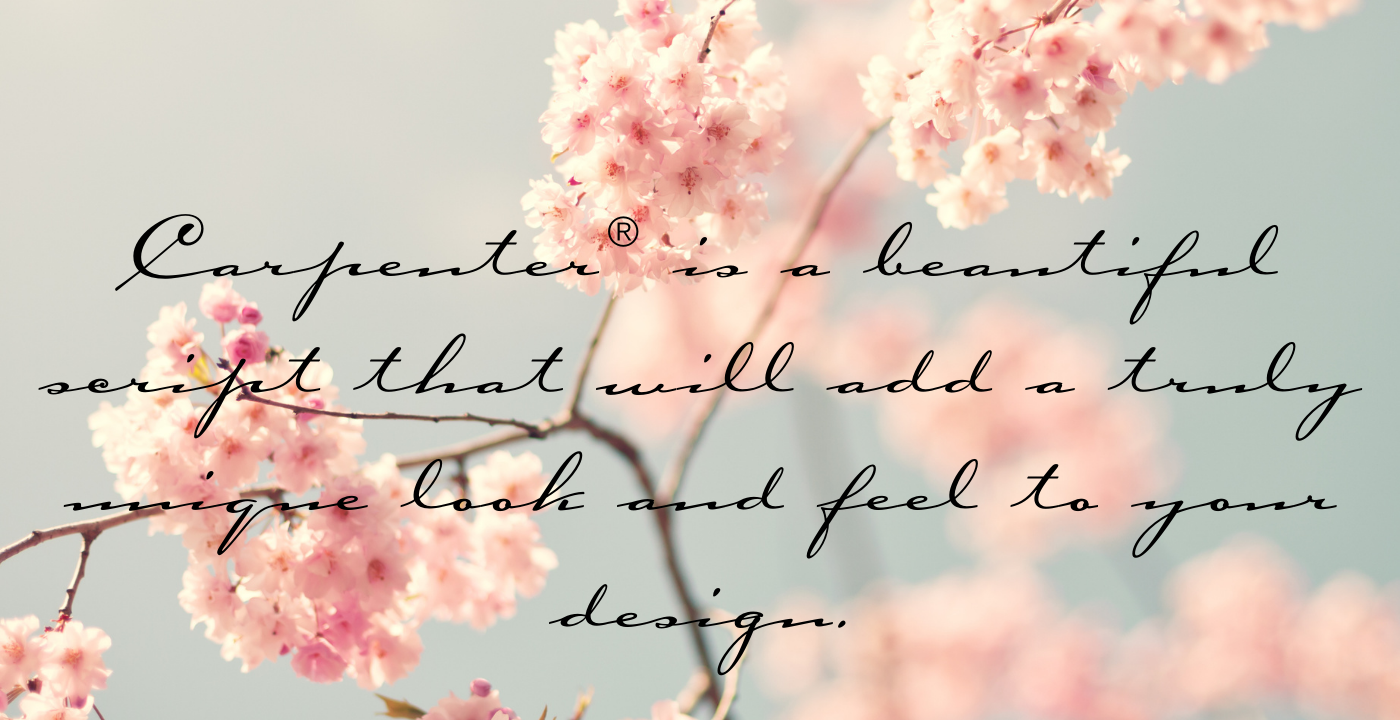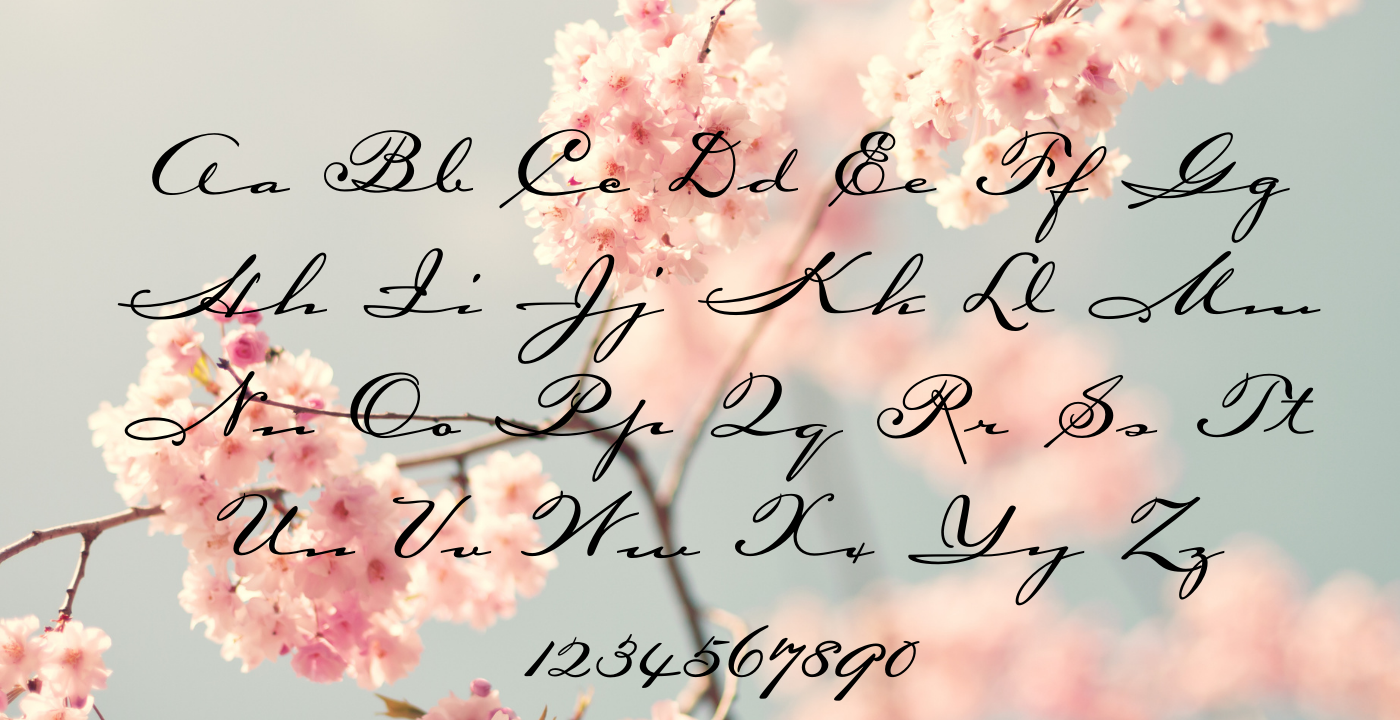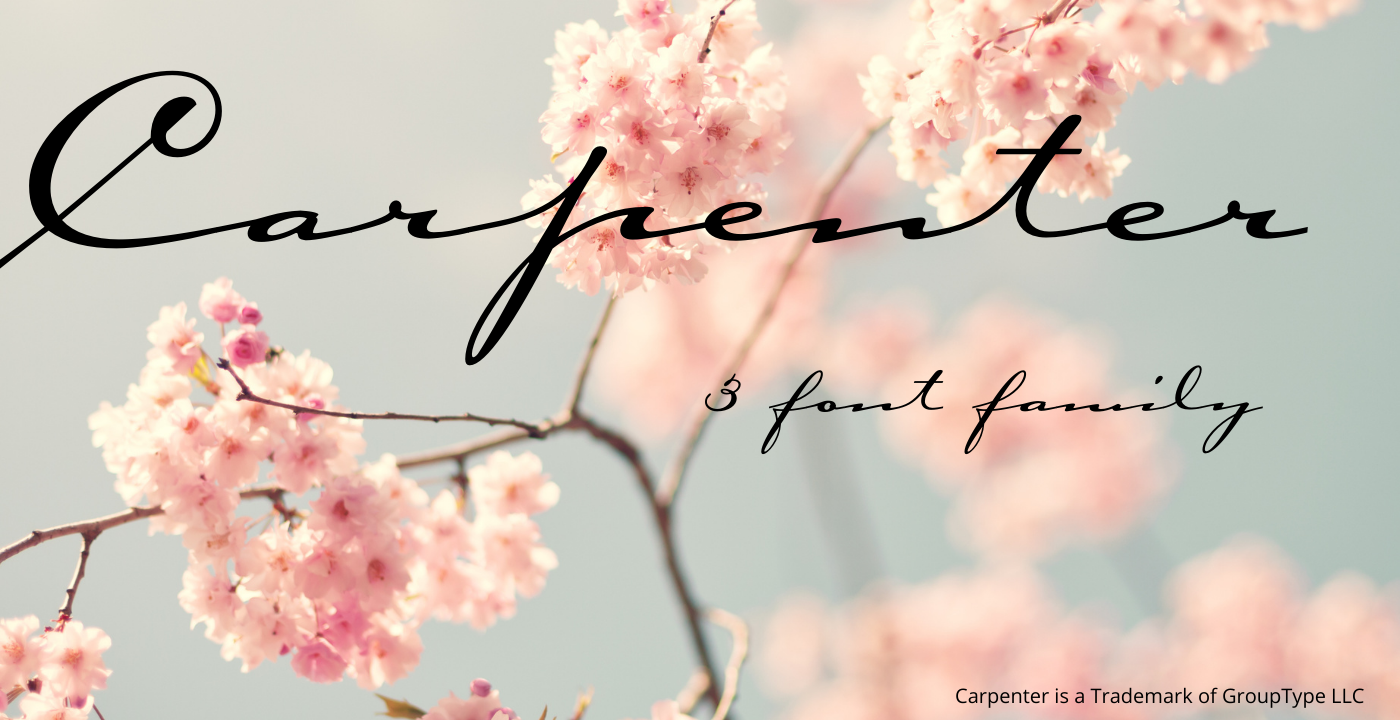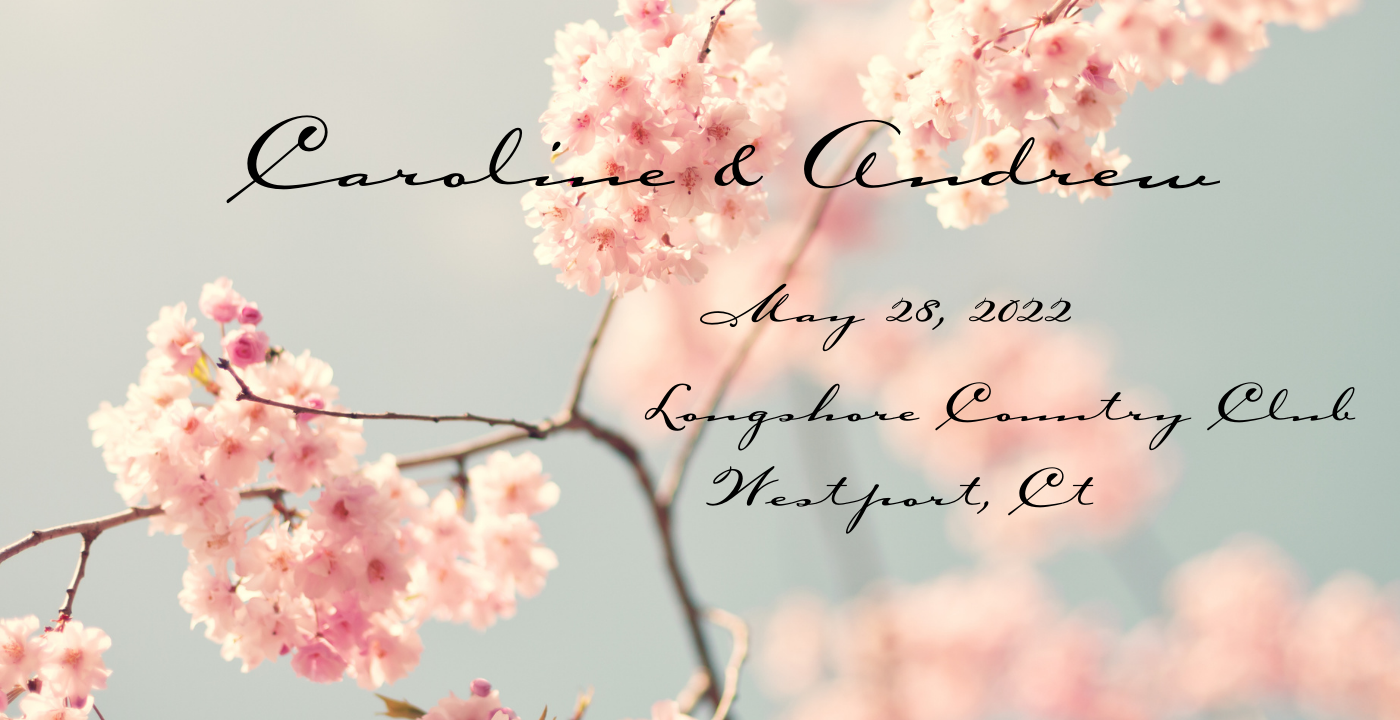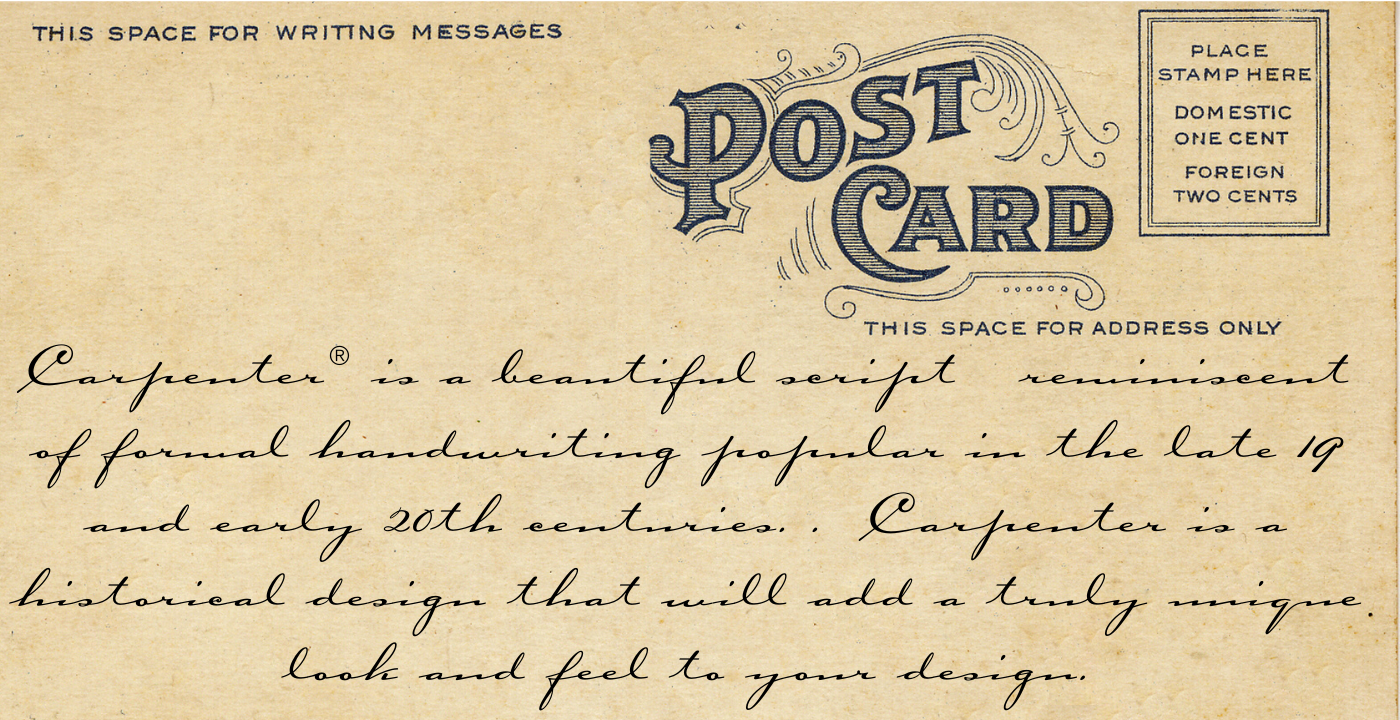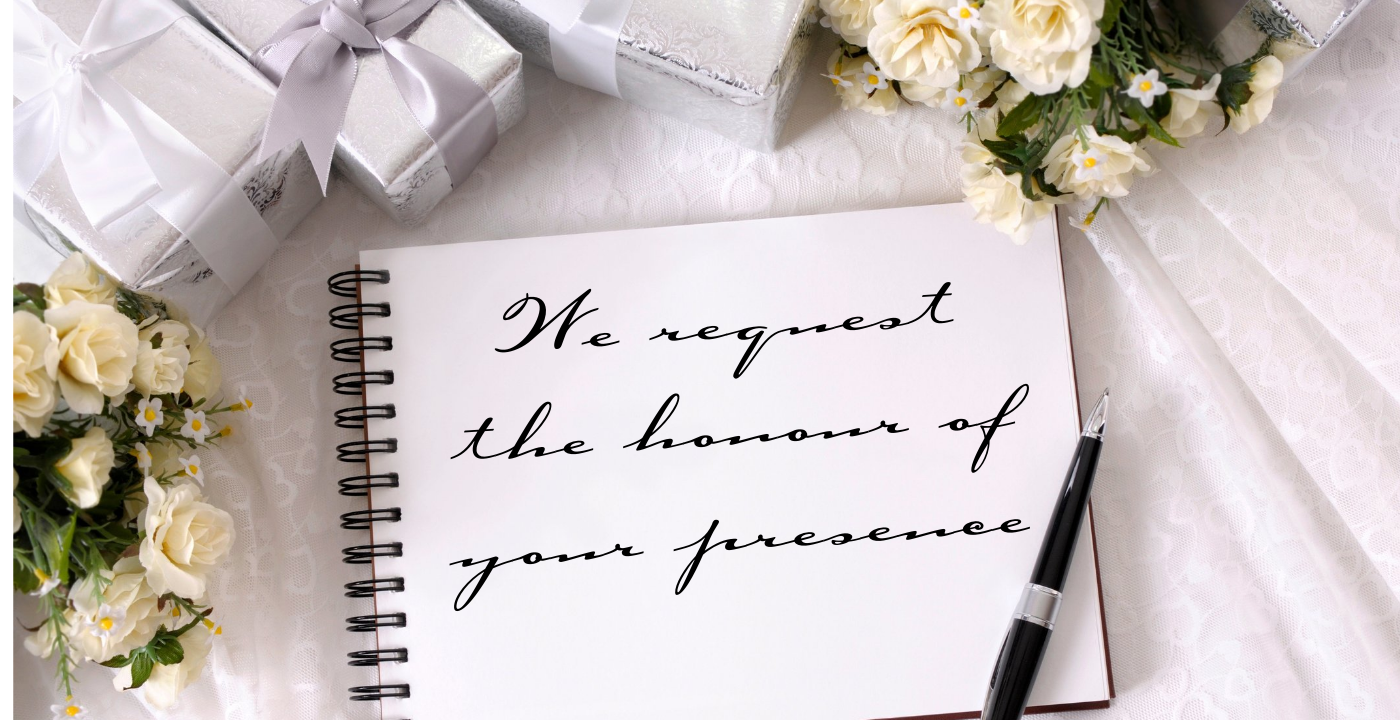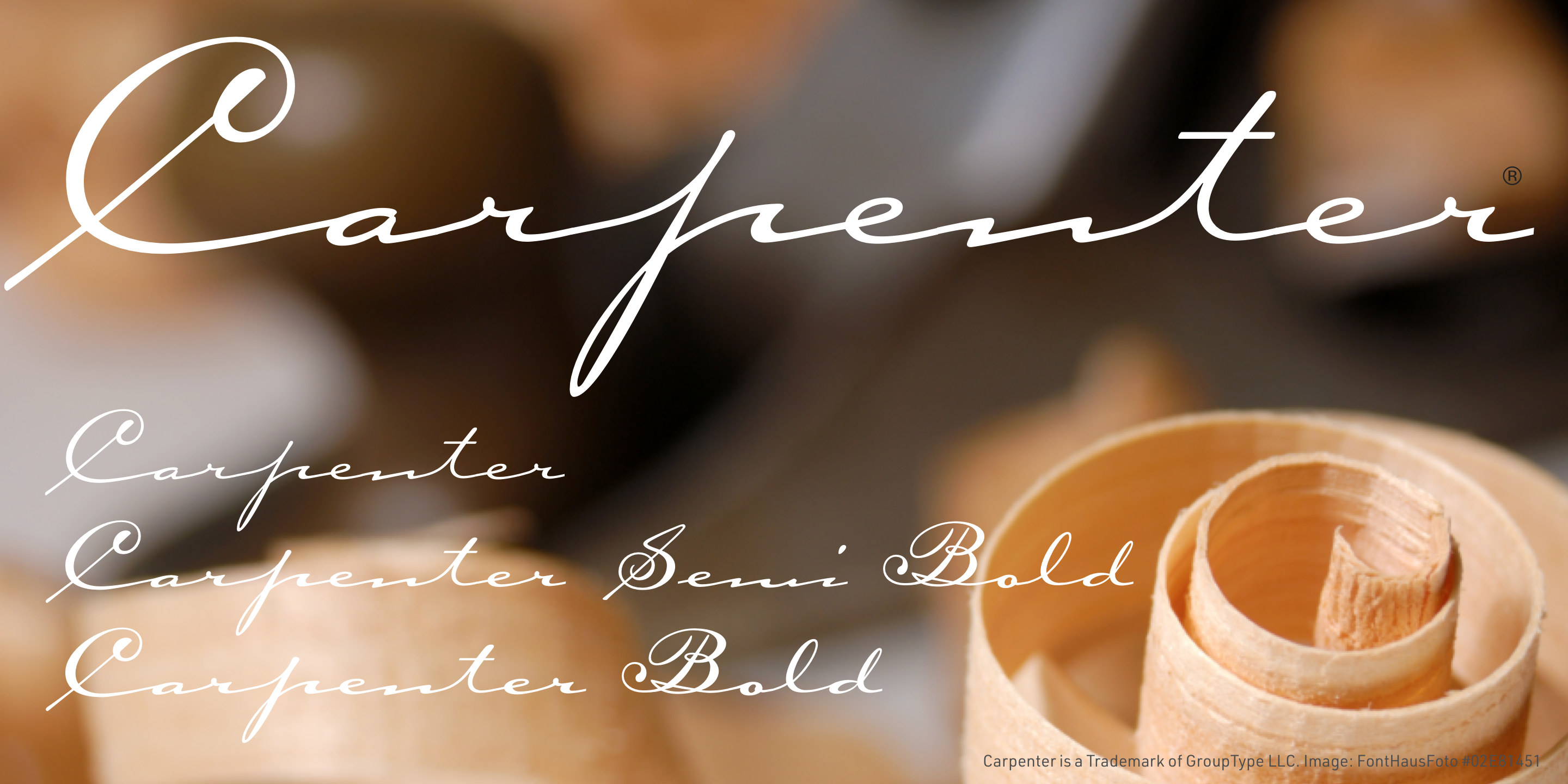
Carpenter Family (3 Typefaces) (3 fonts)
From GroupType
About GroupType
GroupType is a foundry favoring period and revival typeface designs. It is a subsidiary of FontHaus. From Aquiline®, a period 16th-century typeface to great revivals like Carpenter®, Corvinus Skyline, Cloister Initials and Detroit Metro®, these typefaces also have great contemporary appeal as well as important historical value. Use as headlines or drop caps mixed with your favorite text.